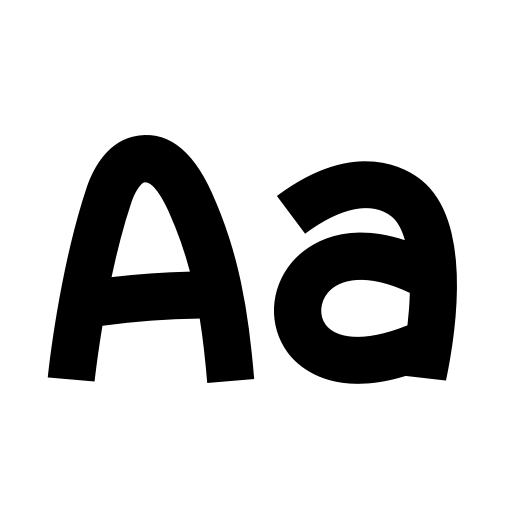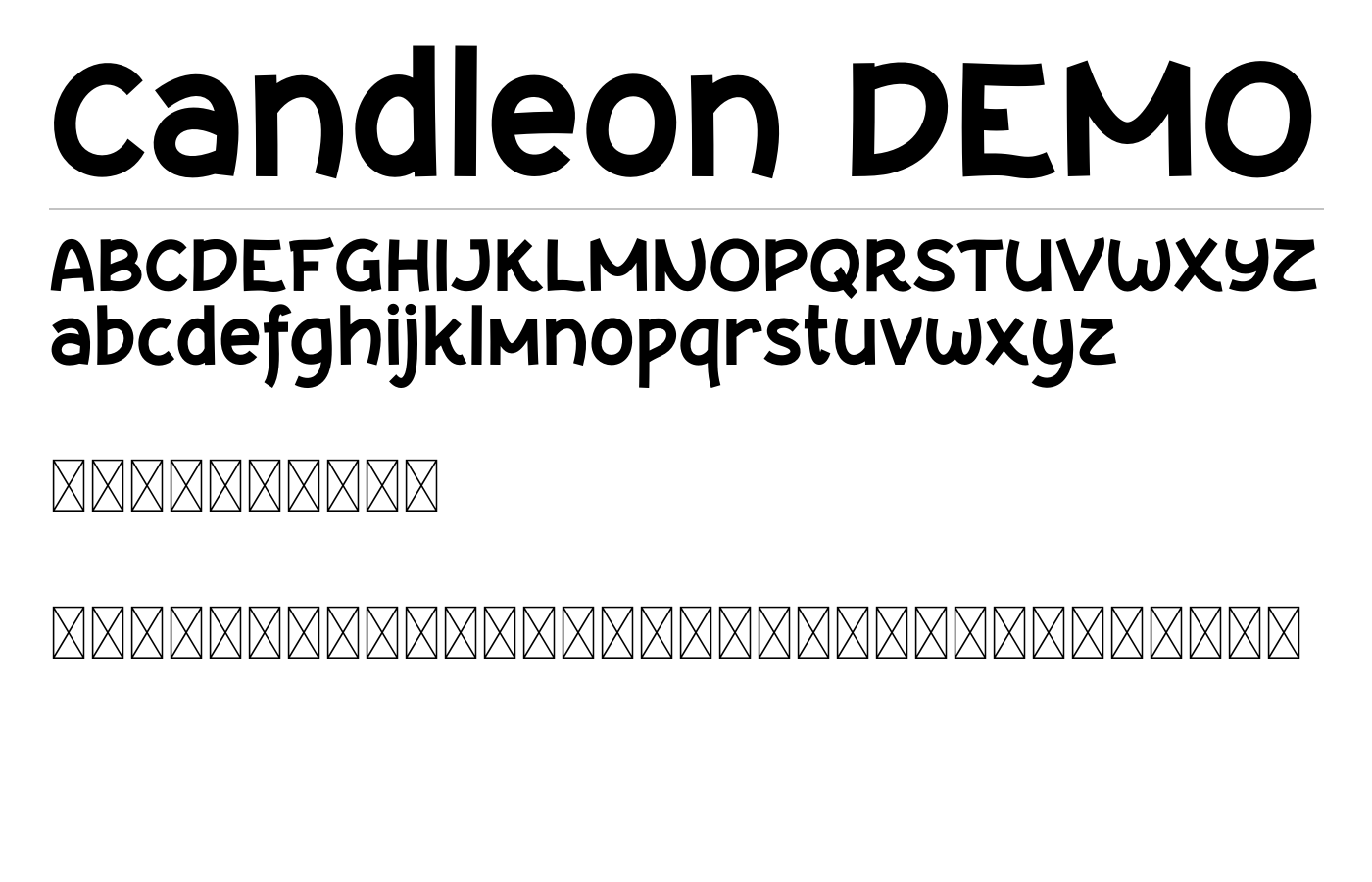
Candleon DEMO is a playful and casual sans serif font characterized by its irregular, hand-drawn letterforms and slightly uneven strokes, giving it a friendly and approachable feel. With a moderate weight and generous x-height, it remains highly readable while conveying a sense of fun and creativity, making it ideal for children's books, informal branding, and whimsical design projects. Its unique, slightly quirky shapes lend personality and charm, perfect for designs that want to feel warm and inviting rather than rigid or formal.
Candleon DEMO Font
About Candleon DEMO Font